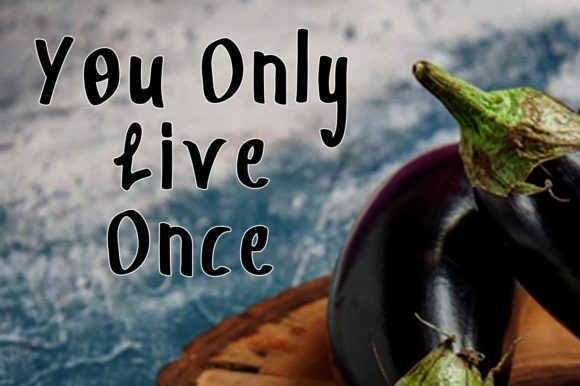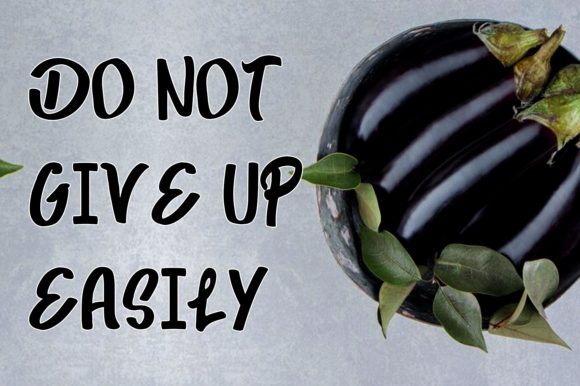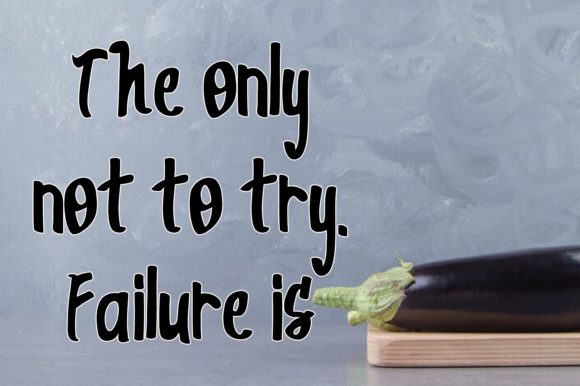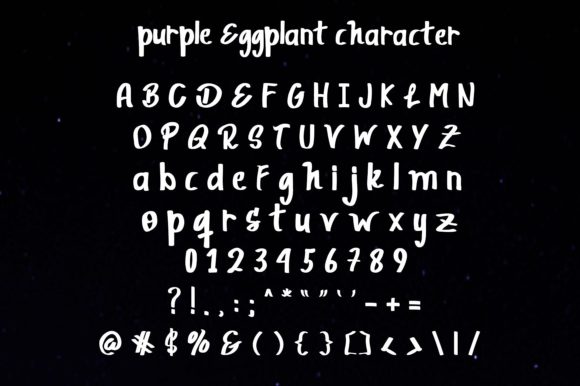
Introduction to Purple Eggplant Font
Purple Eggplant is a cute and casual handwritten font.
It can be used for various purposes such as logos, headings, t-shirts, letterhead, signage, labels, news, posters, badges and so much more .
Key Features of Purple Eggplant Font
Why Choose Purple Eggplant Font?
Purple Eggplant Font offers exceptional quality and versatility, making it a valuable addition to your design toolkit. Whether you’re creating for personal projects or commercial use, Purple Eggplant Font delivers professional results.